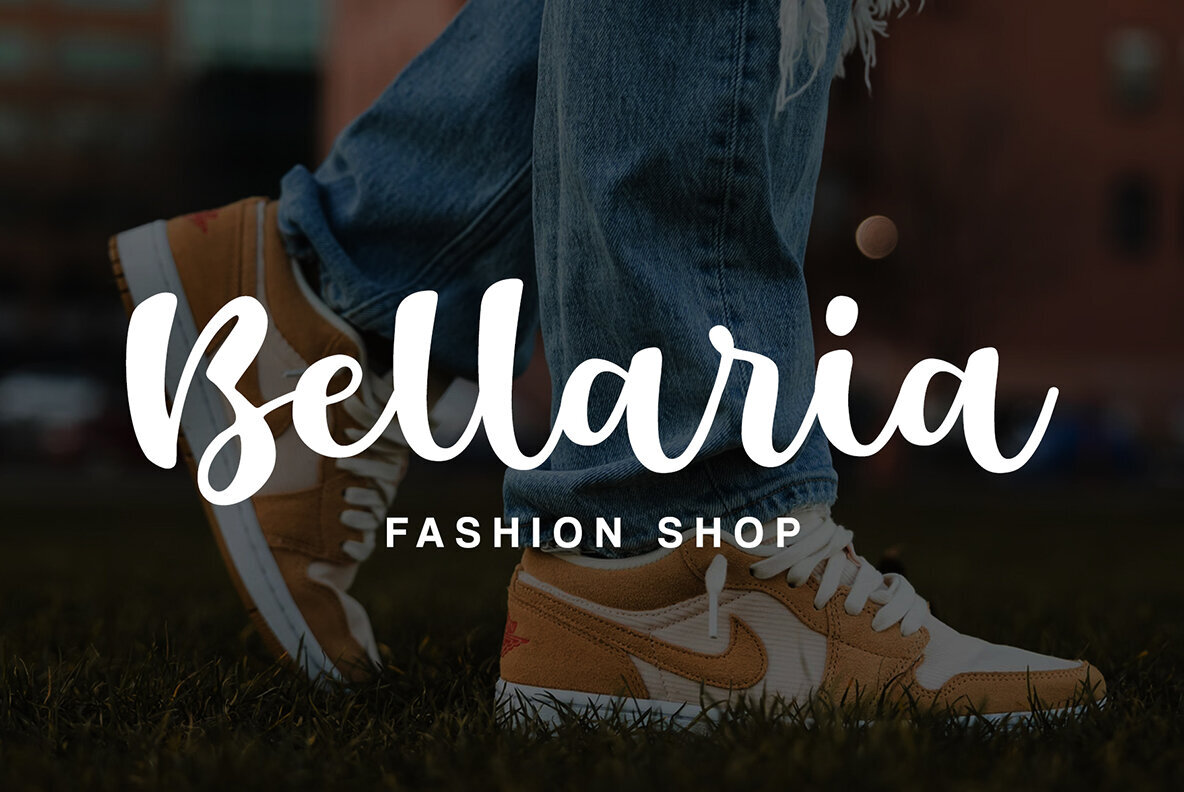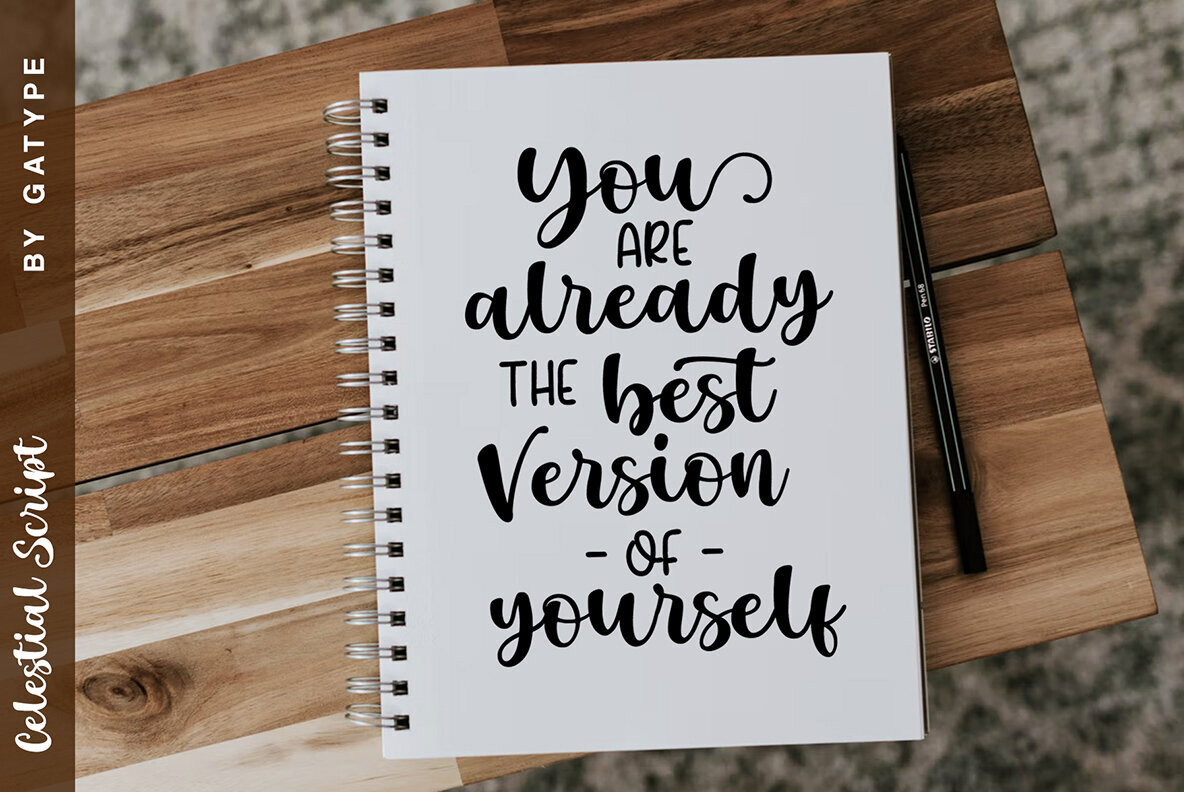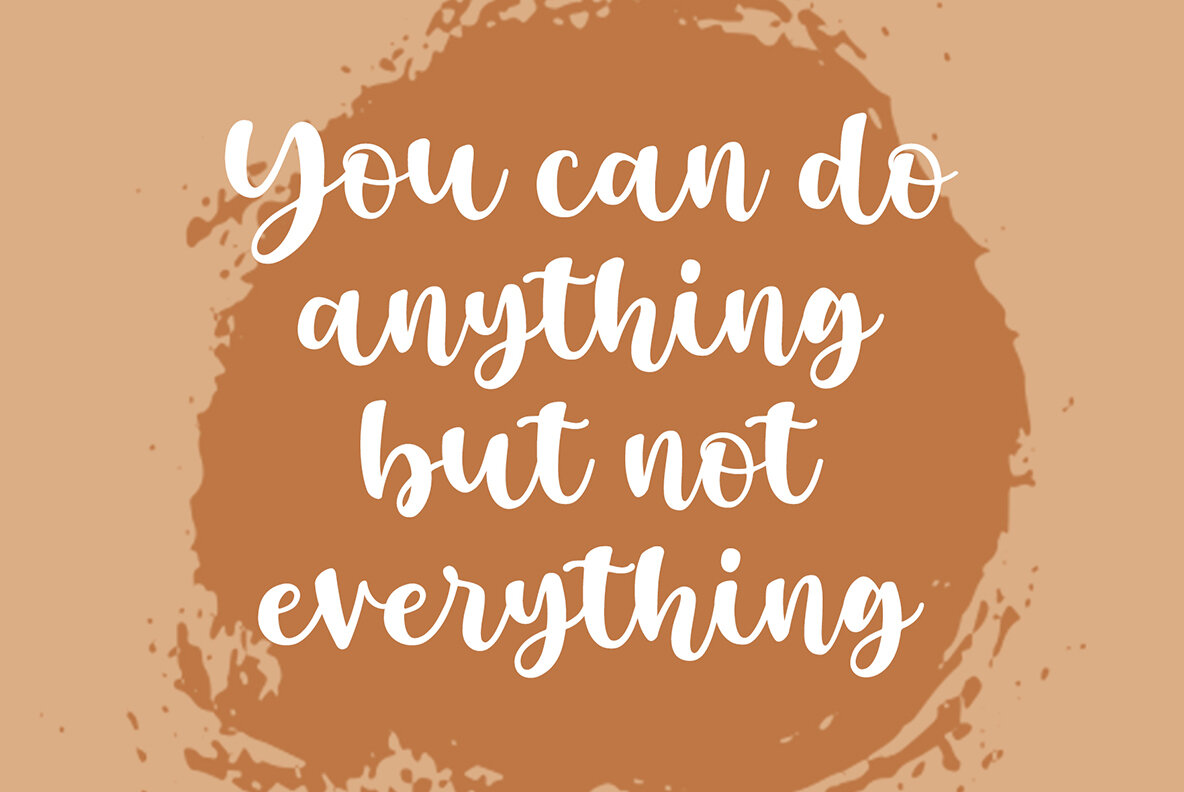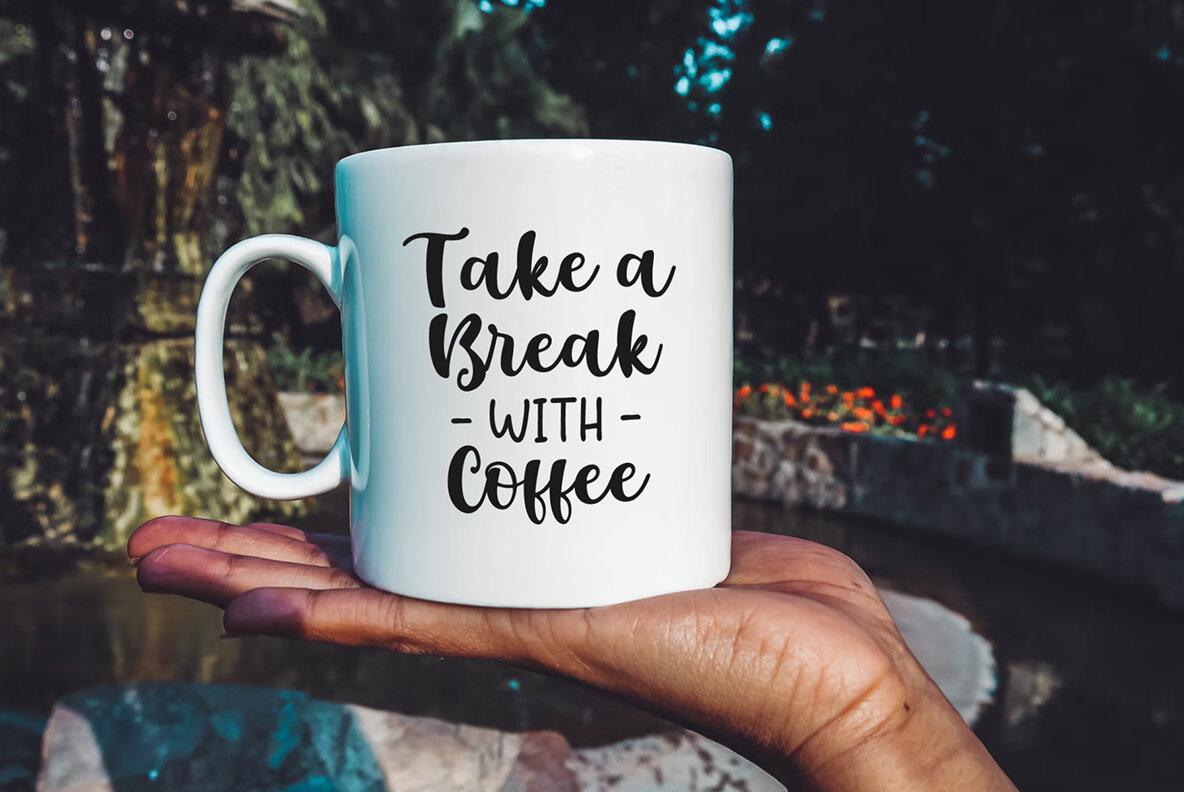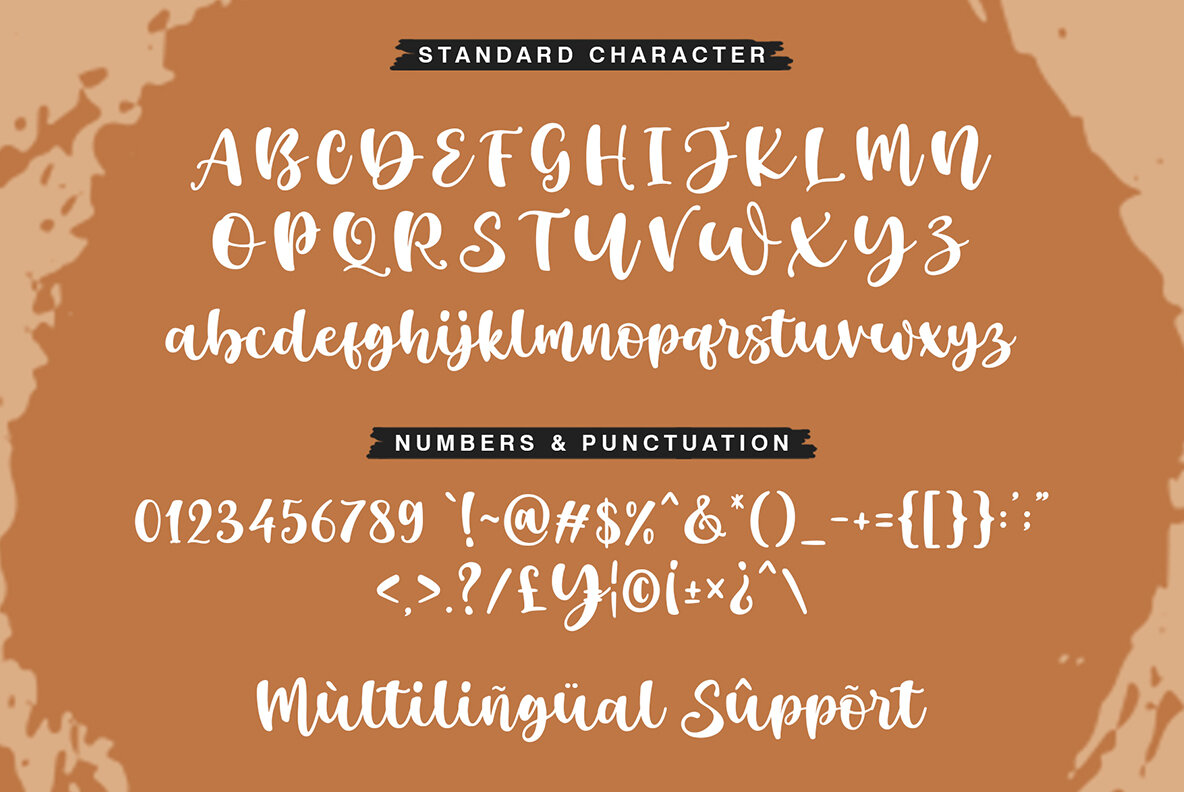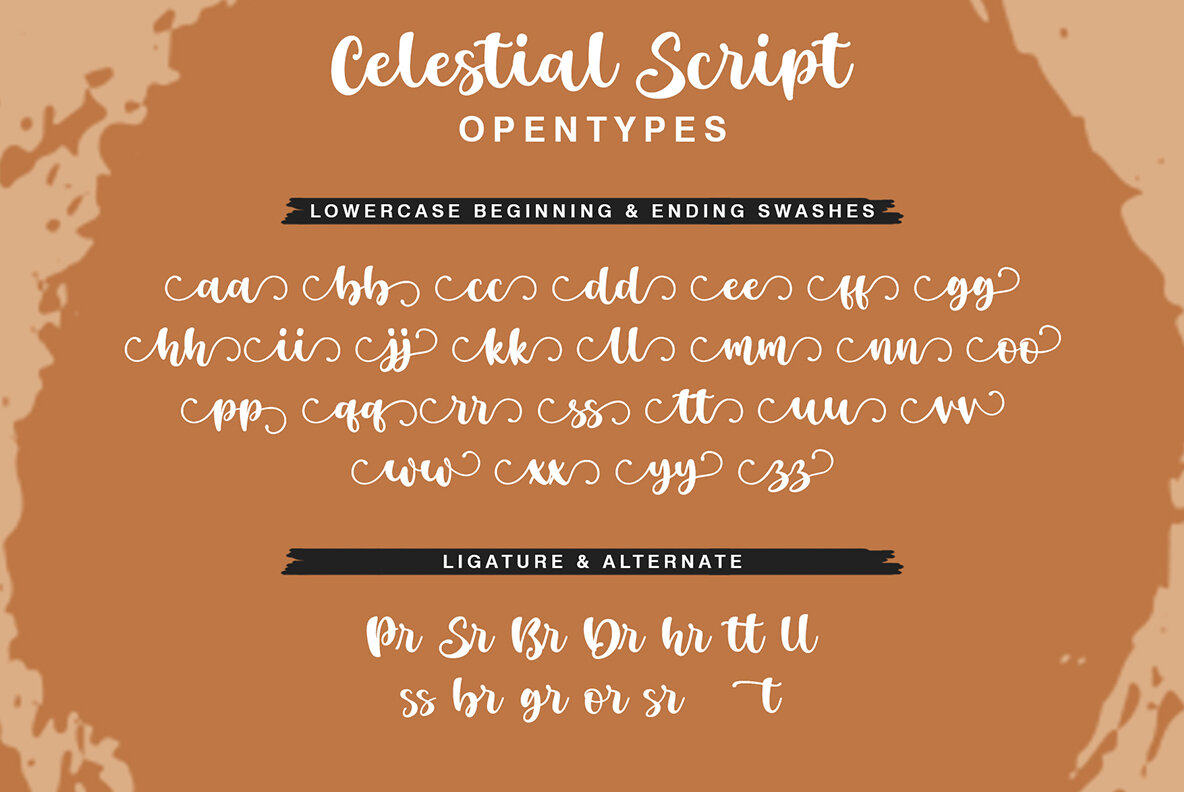
Celestial Script Font
Celestial Script Regular
Celestial Script offers a modern script style characterized by sweet calligraphy, decorative characters, and a dancing baseline. This font is perfect for invitations, greeting cards, branding materials, business cards, quotes, posters, and more!Celestial Script: A Graceful Calligraphy Font